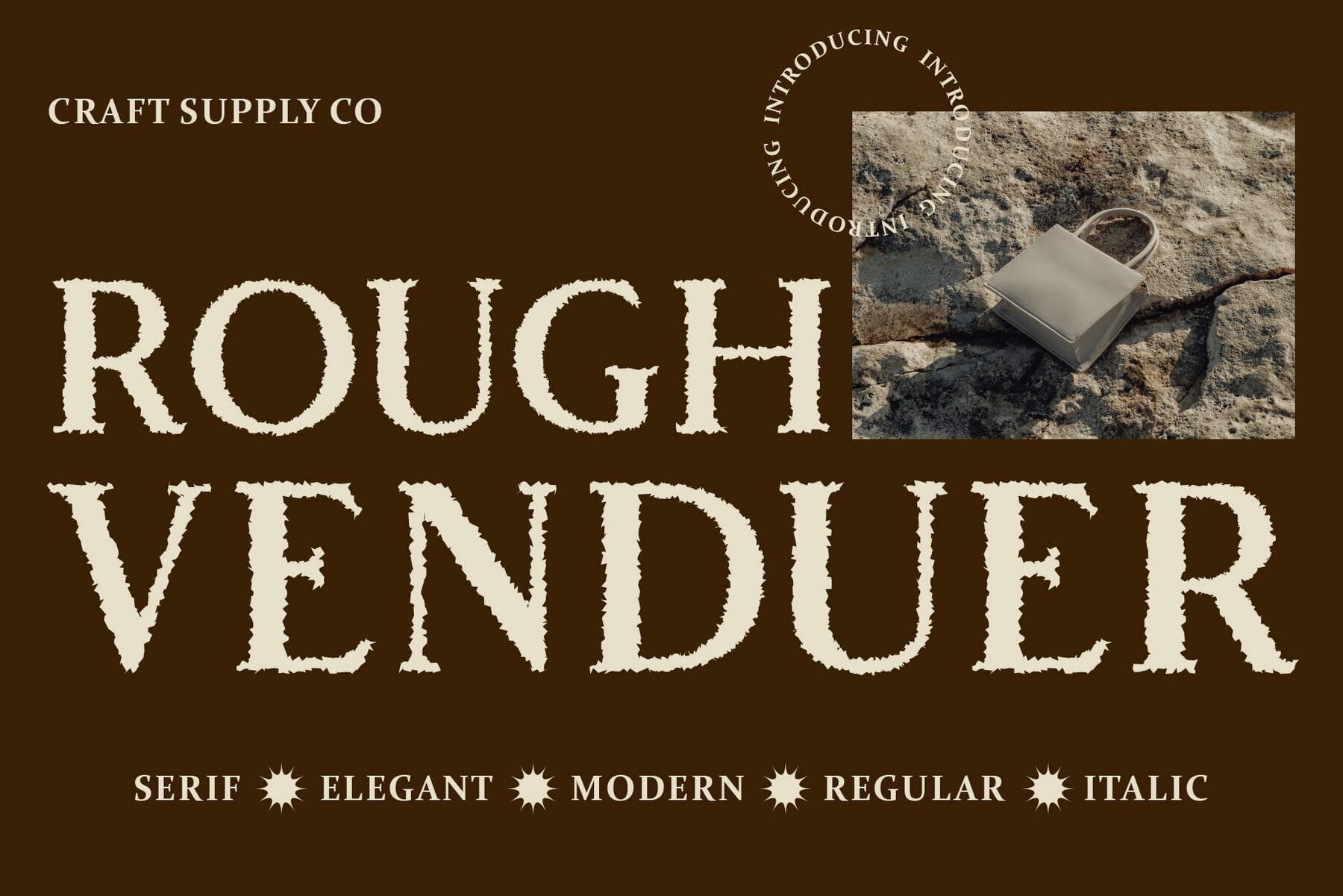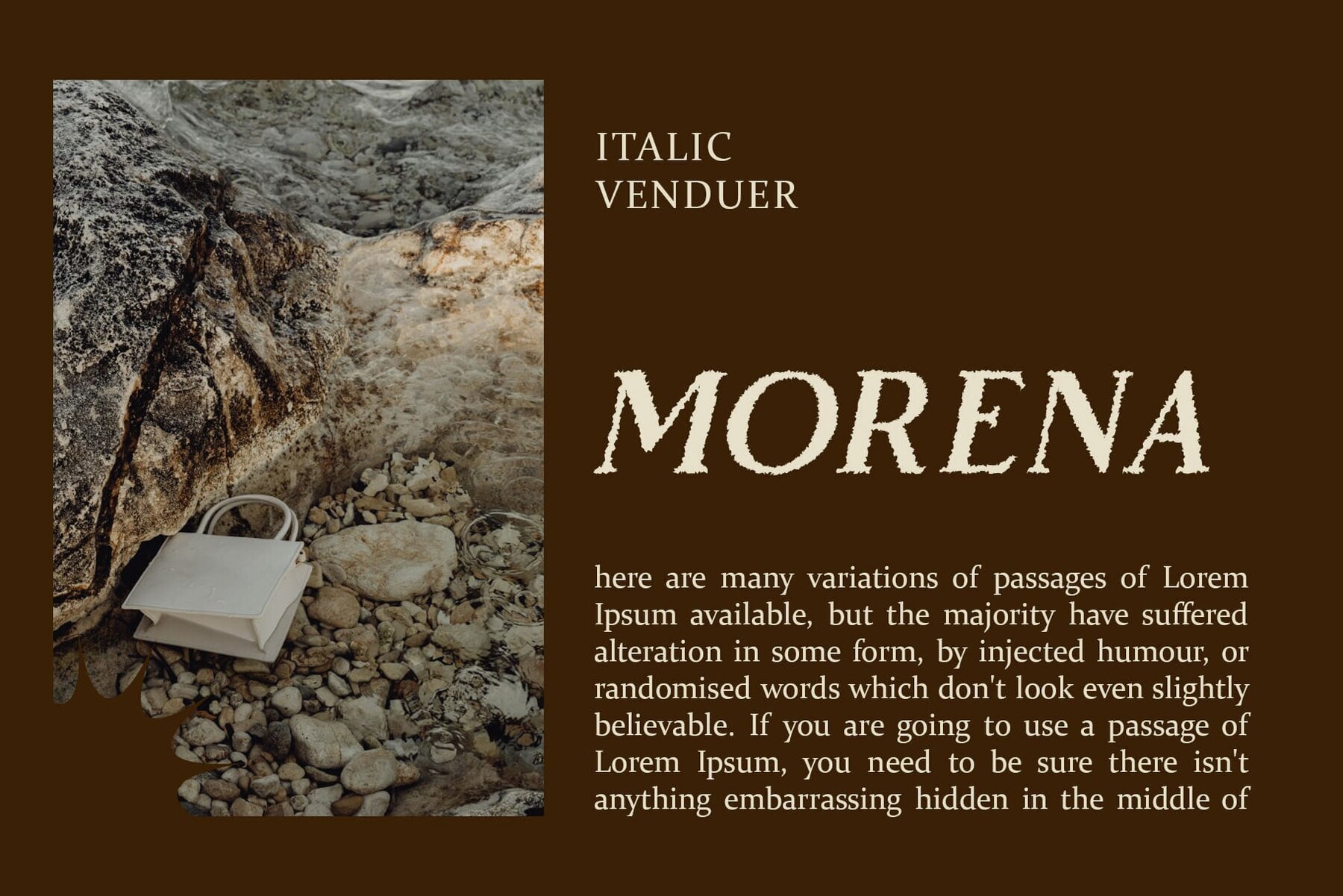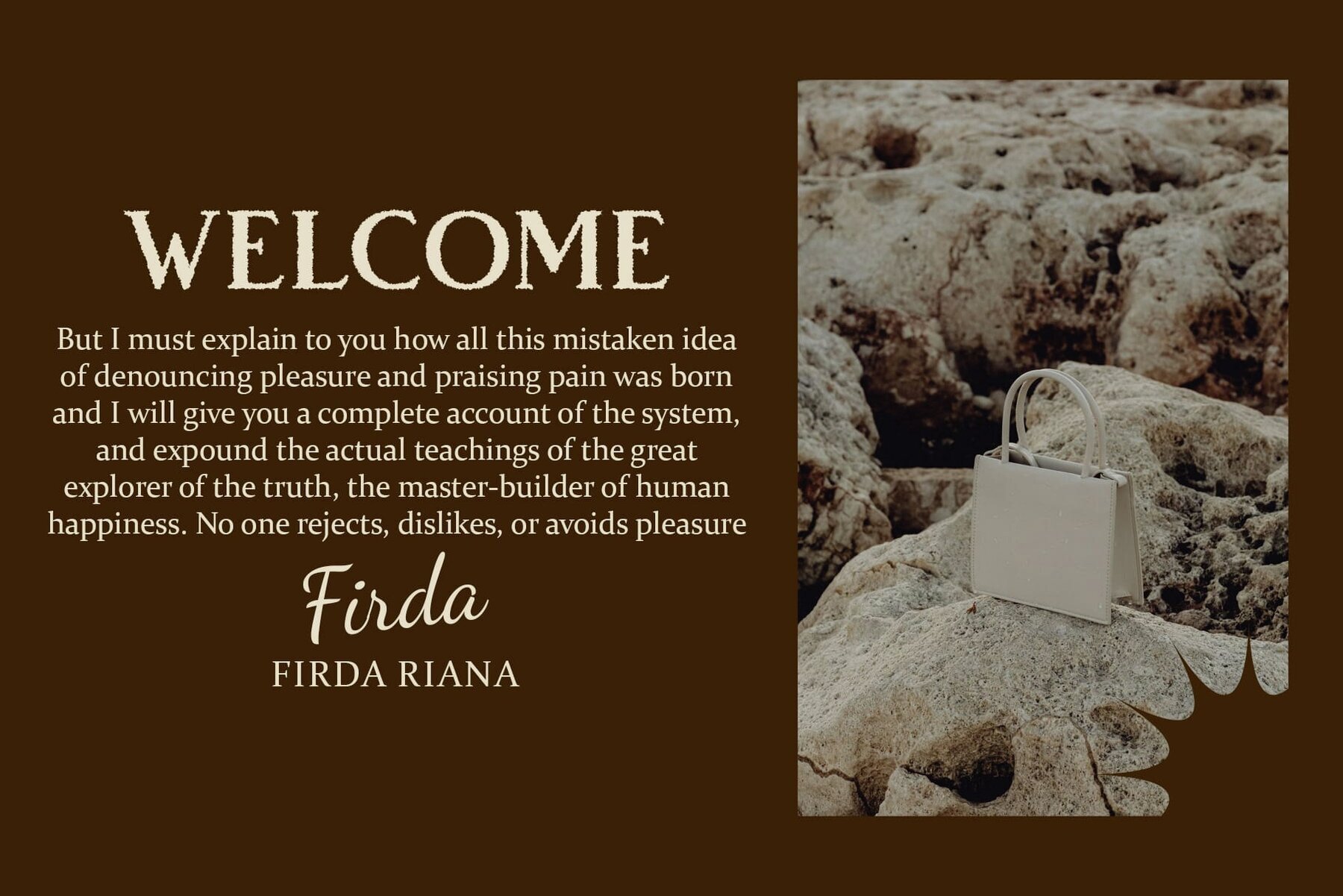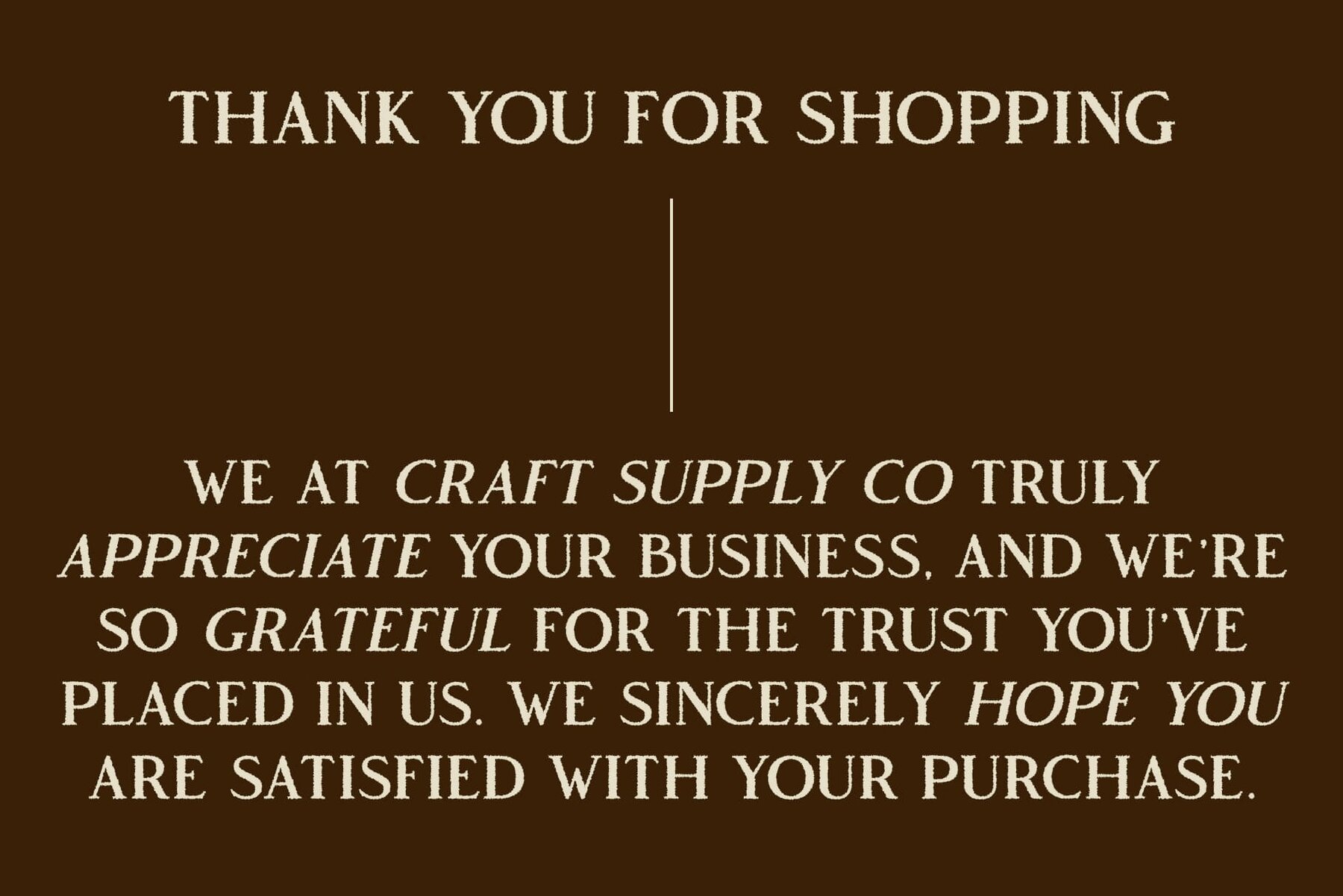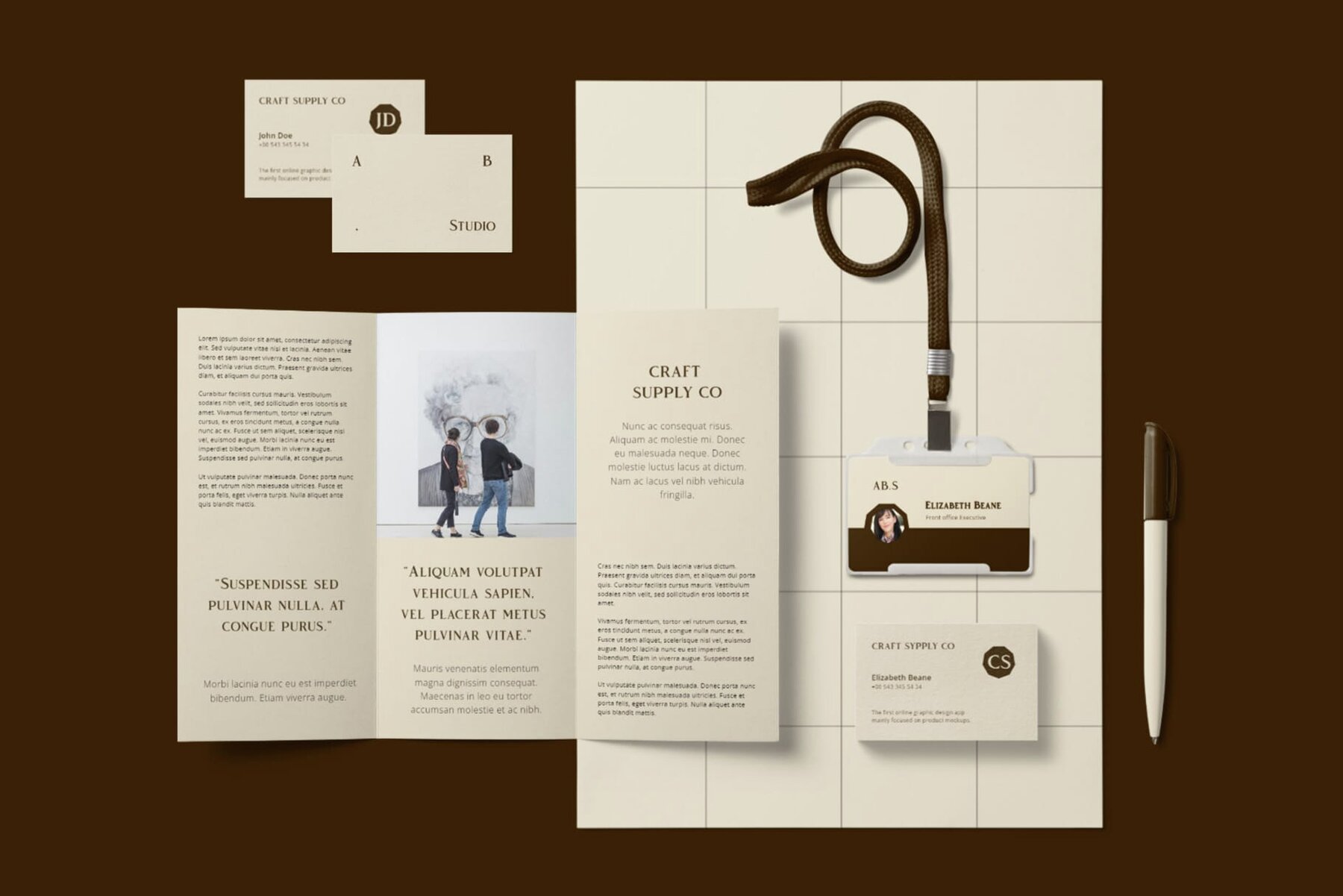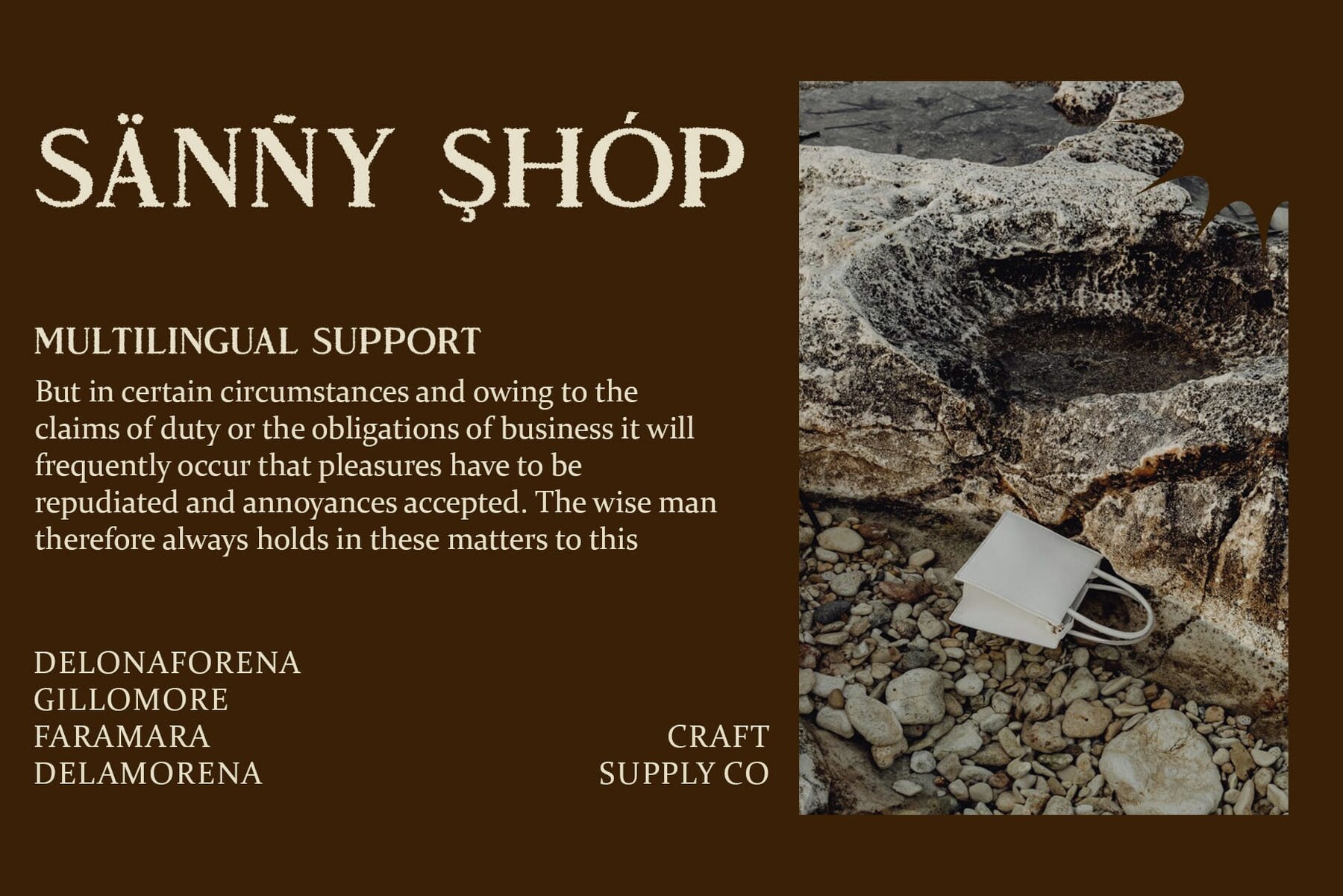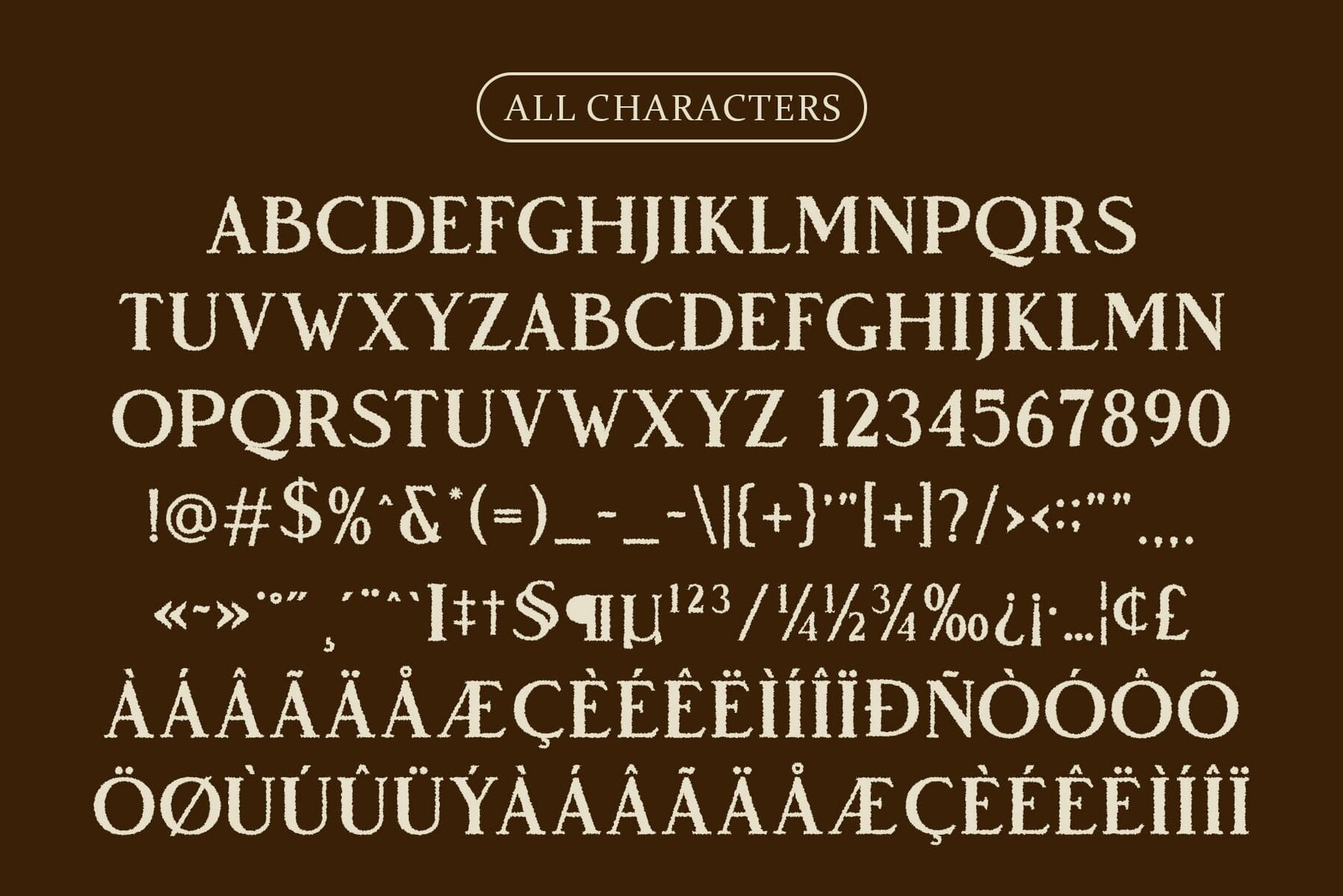
Vendeur Rough Font
Vendeur Rough, crafted by Craft Supply Co., merges the elegance of classic serif typography with an organic, rough texture, creating a striking visual experience. This typeface is specifically designed to bring an old-world charm to modern design projects, making it ideal for those looking to combine classic appeal with a touch of ruggedness.Vendeur Rough by Craft Supply Co.: Classic Serif with a Raw Edge
Features of Vendeur Rough
Ideal Use Cases